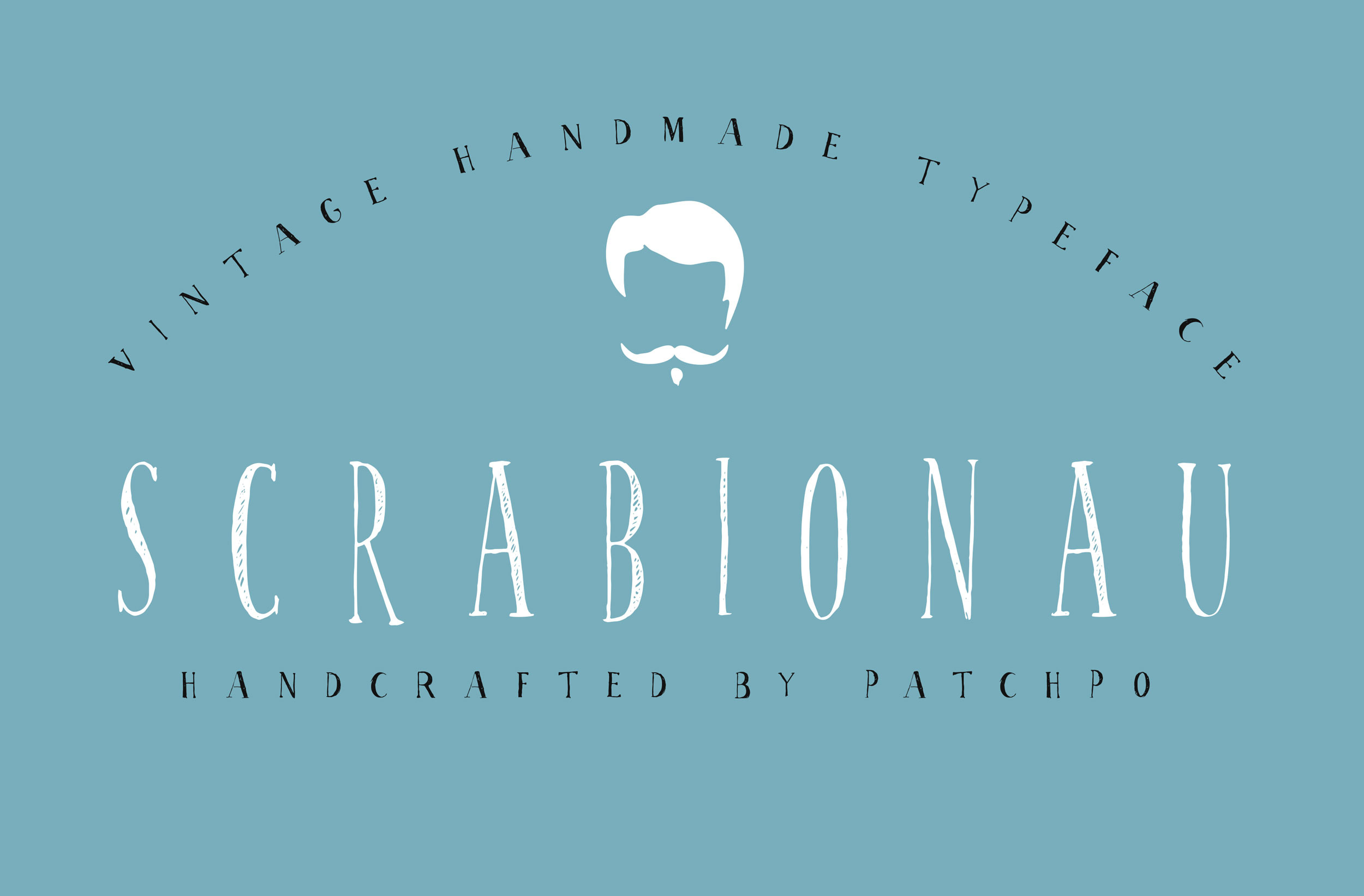
Scrabionau Font
Scrabionau is a condensed handwritten serif. Spontaneous flare and imperfect flow gives a lovely natural feel. Great for invitations such as greeting cards, branding materials, business cards, quotes, posters, and more!
Scrabionau contains standard characters, lowercase, uppercase, numbers, punctuation, and international characters.